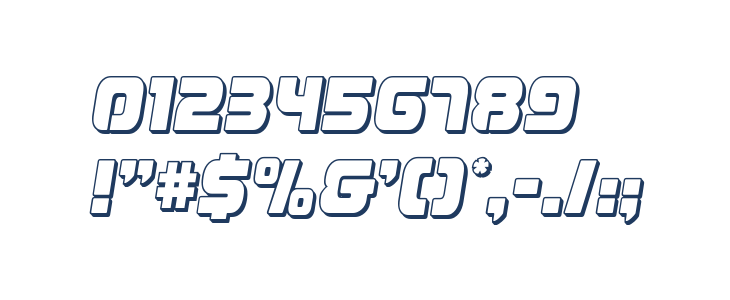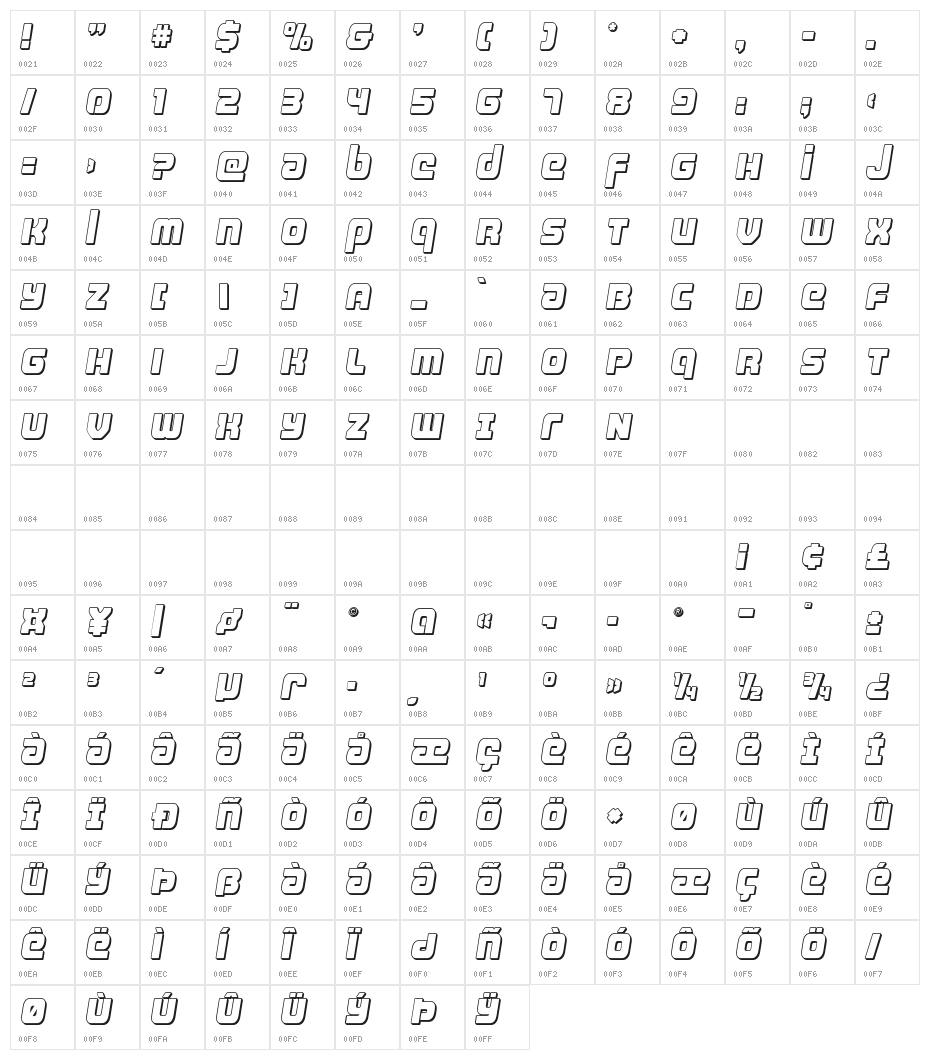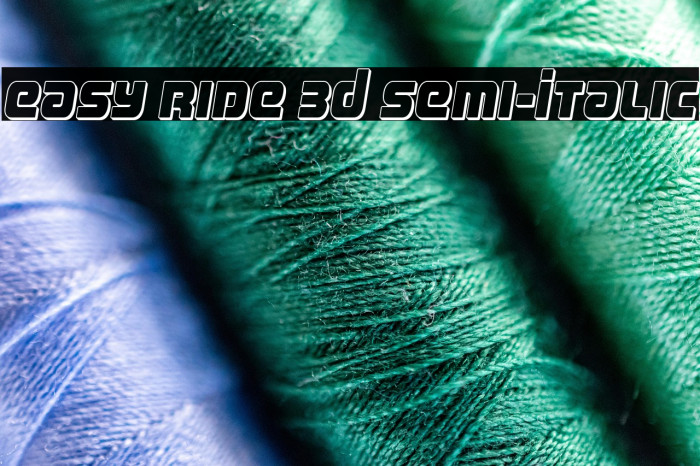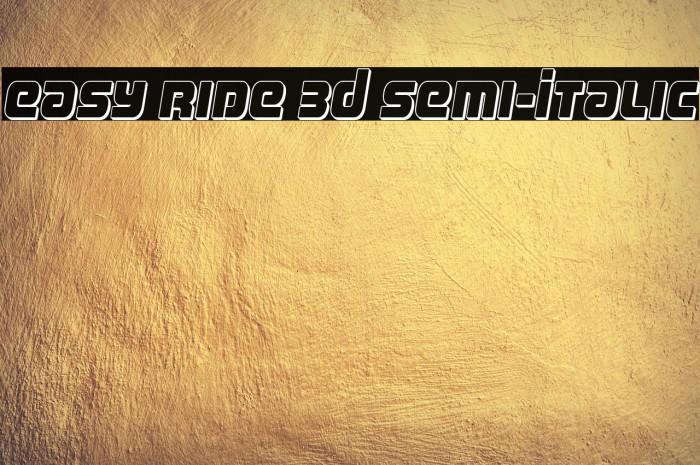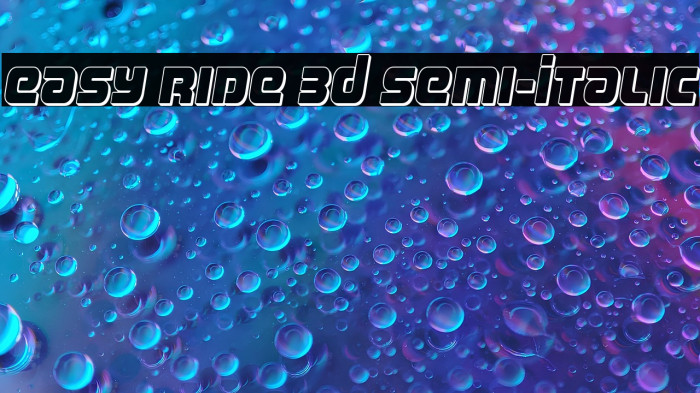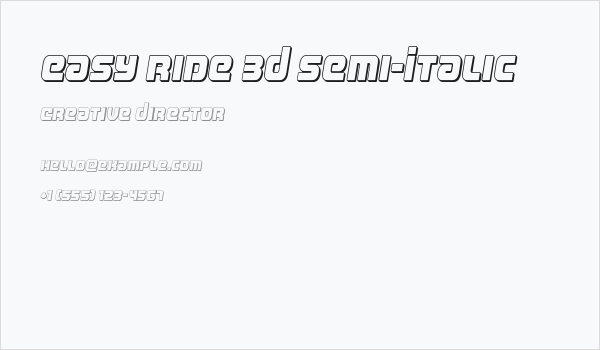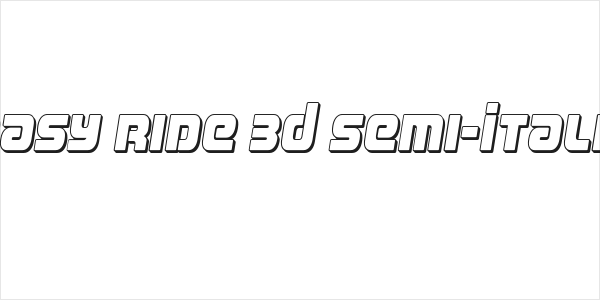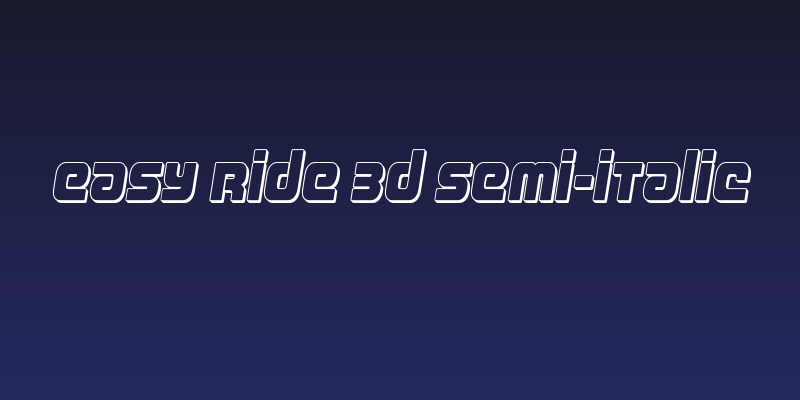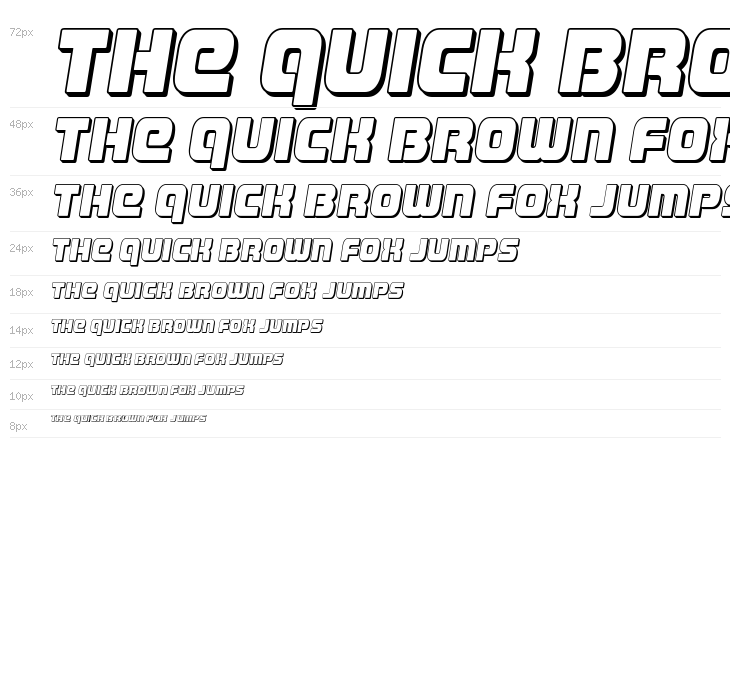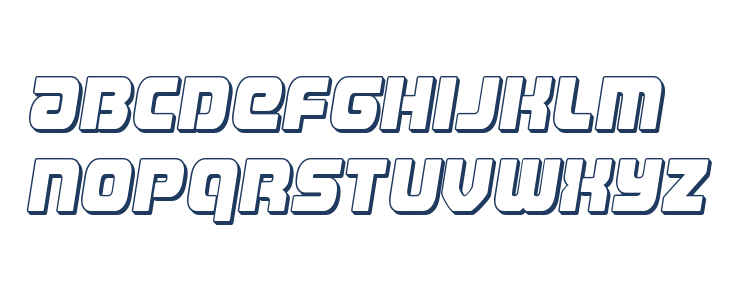
Easy Ride 3D Semi-Italic Font
Easy Ride 3D Semi-Italic Description
This font features a bold, three-dimensional appearance with semi-italic styling. The characters are outlined, giving them a distinct, futuristic look. The uppercase and lowercase letters maintain a consistent style, with rounded edges and a slight slant to the right, enhancing the italic effect. The numerals and special characters follow the same design principles, ensuring uniformity across the typeface. The font's unique 3D effect is achieved through a clever use of outlines, making it stand out in any design project.
| Proposed Projects | Ideal for tech-themed designs, video game titles, futuristic posters, and branding that requires a modern, eye-catching typeface. |